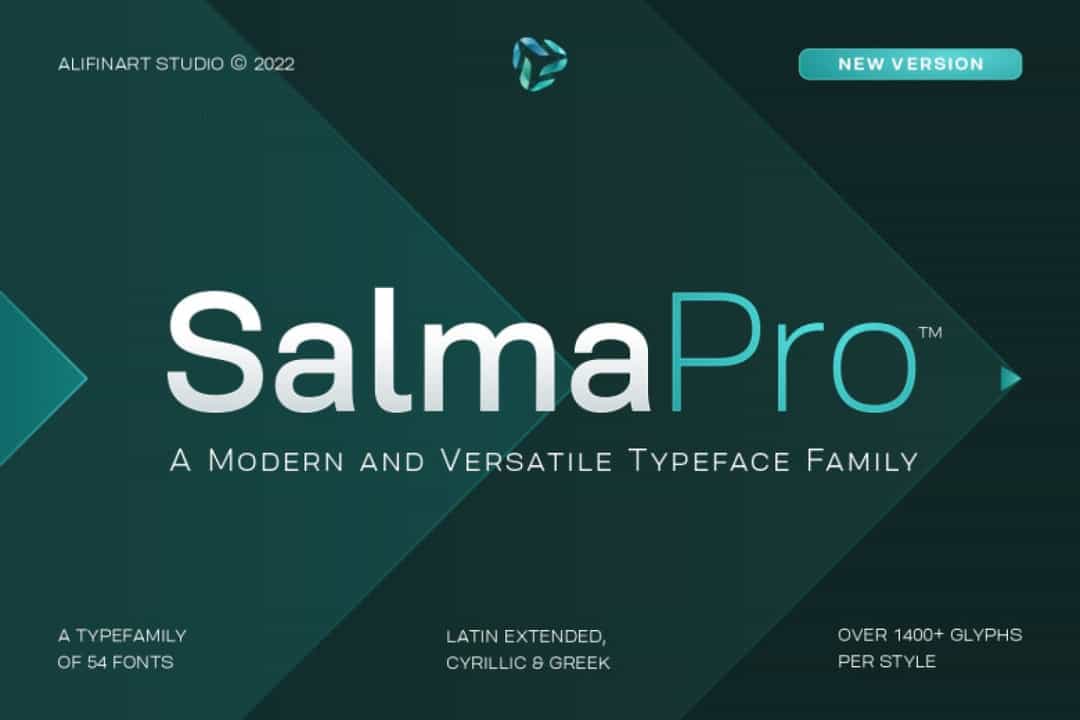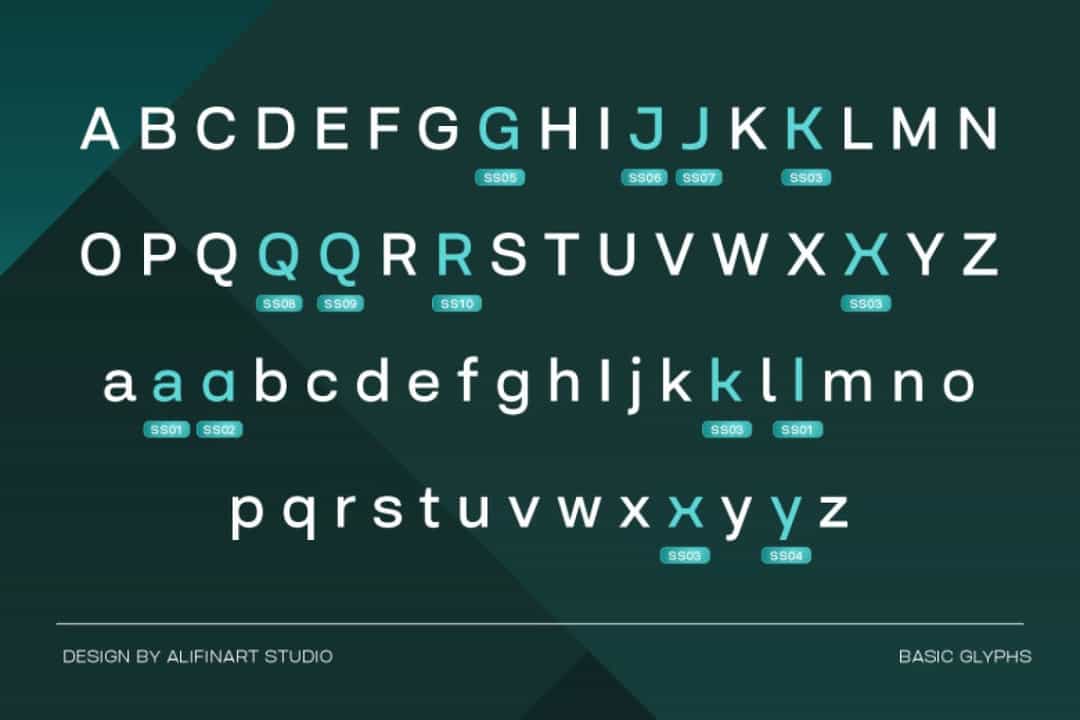
Salma Pro is an innovative and stylish sans serif font designed with an inimitable style and powerful personality, and serves as the successor of Salma Alfasans from earlier. Salma Pro boasts a wider variety of features for improved legibility, more extensive styles, and offers better support across different projects – perfect for all sorts of endeavors!